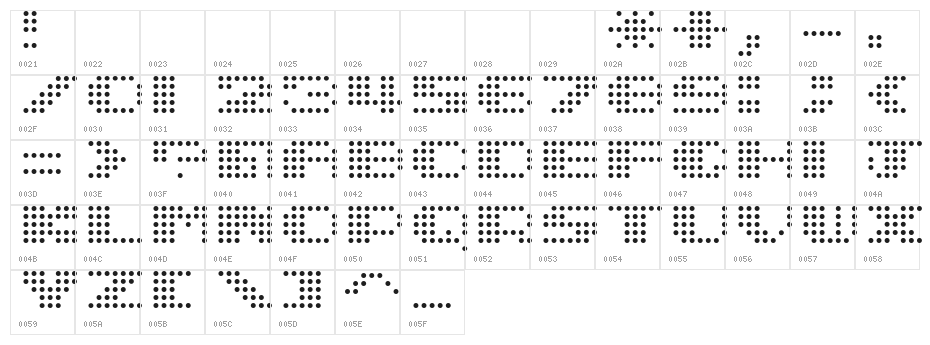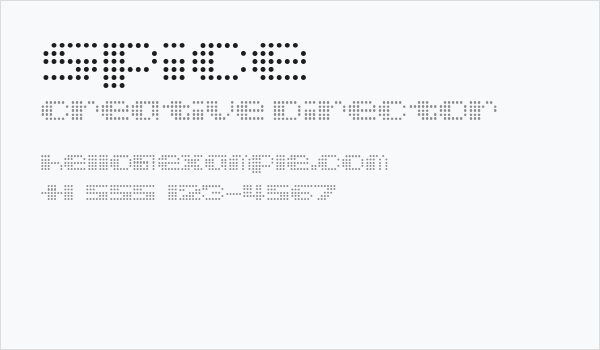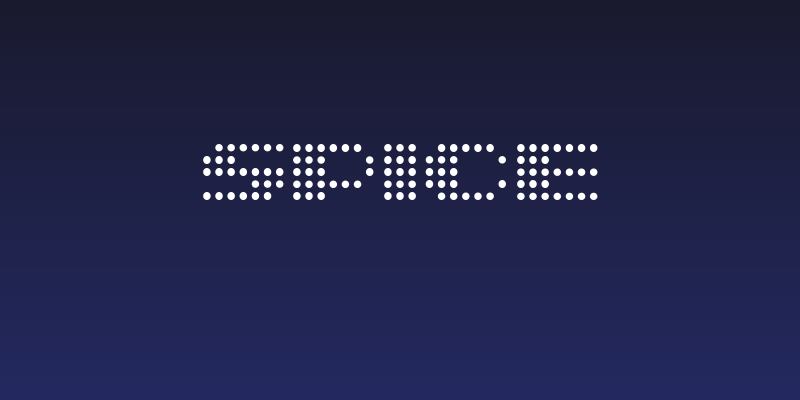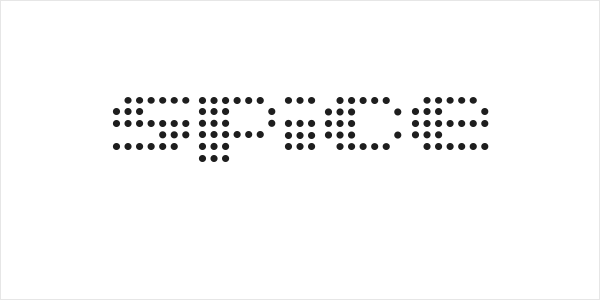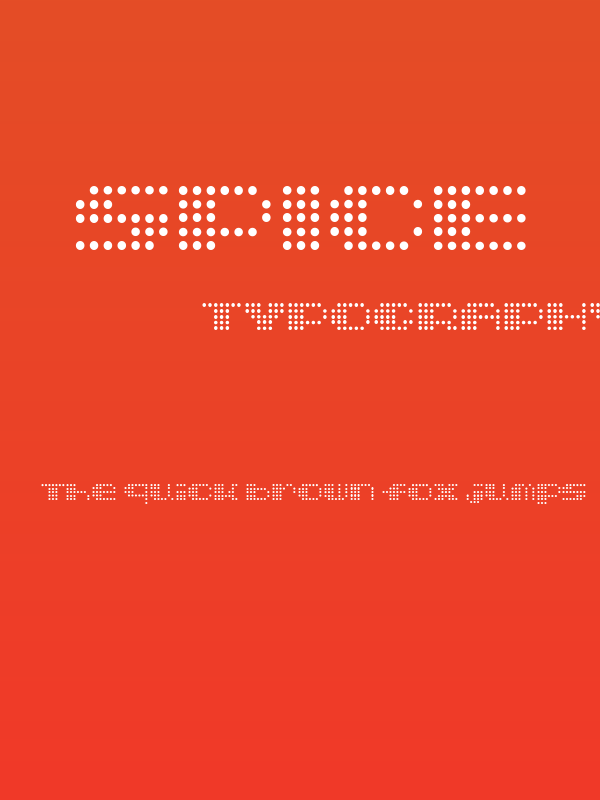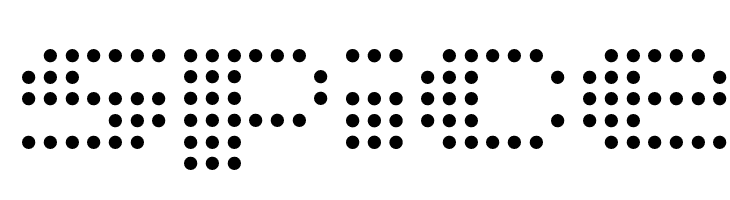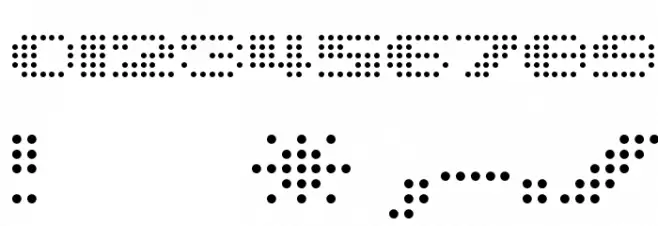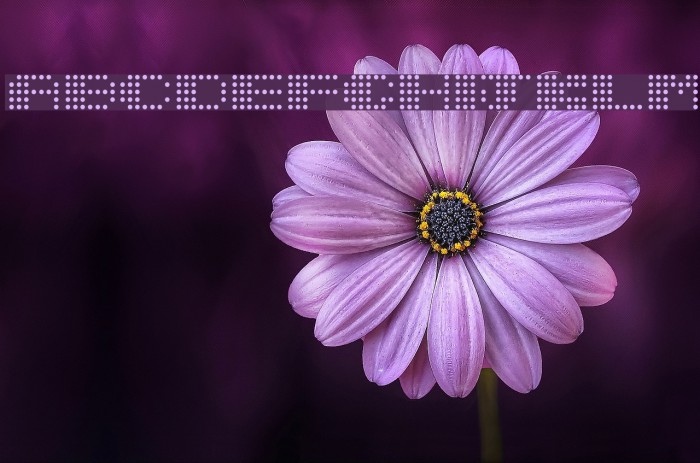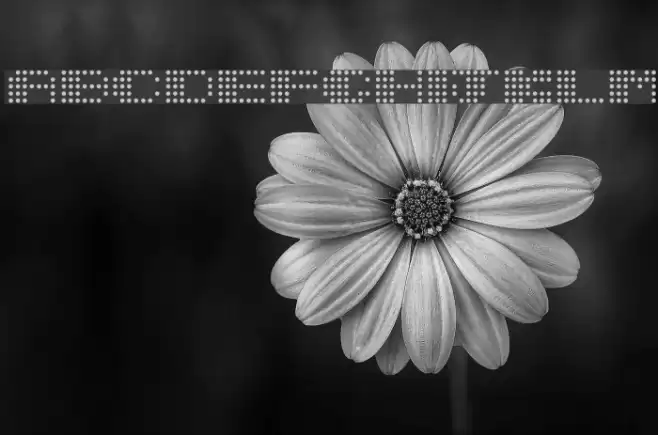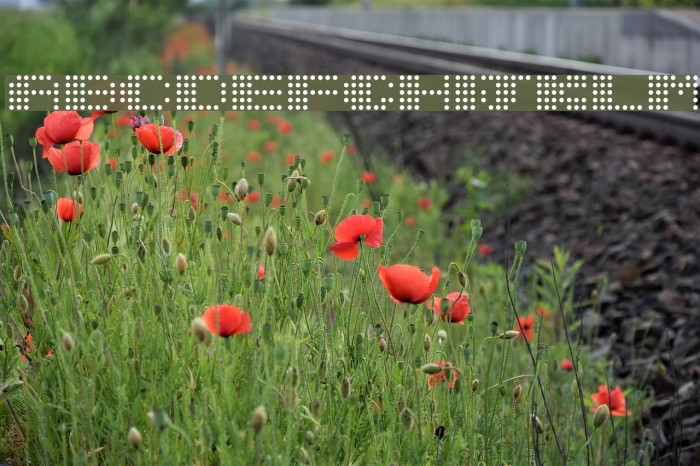
Spice Font
Spice Description
This font is a unique and creative design composed entirely of small dots forming each character. It presents a modern and digital aesthetic, reminiscent of LED displays or pixel art. The characters are evenly spaced and maintain a consistent dot pattern throughout, giving it a cohesive and structured appearance. The font is highly legible despite its unconventional style, making it suitable for various creative applications. Its playful yet precise design makes it stand out, offering a fresh take on traditional typography.
| Use Case | Headlines, Logos, Digital displays |
| Proposed Projects | Ideal for digital art projects, tech-themed designs, futuristic branding, and creative posters. |